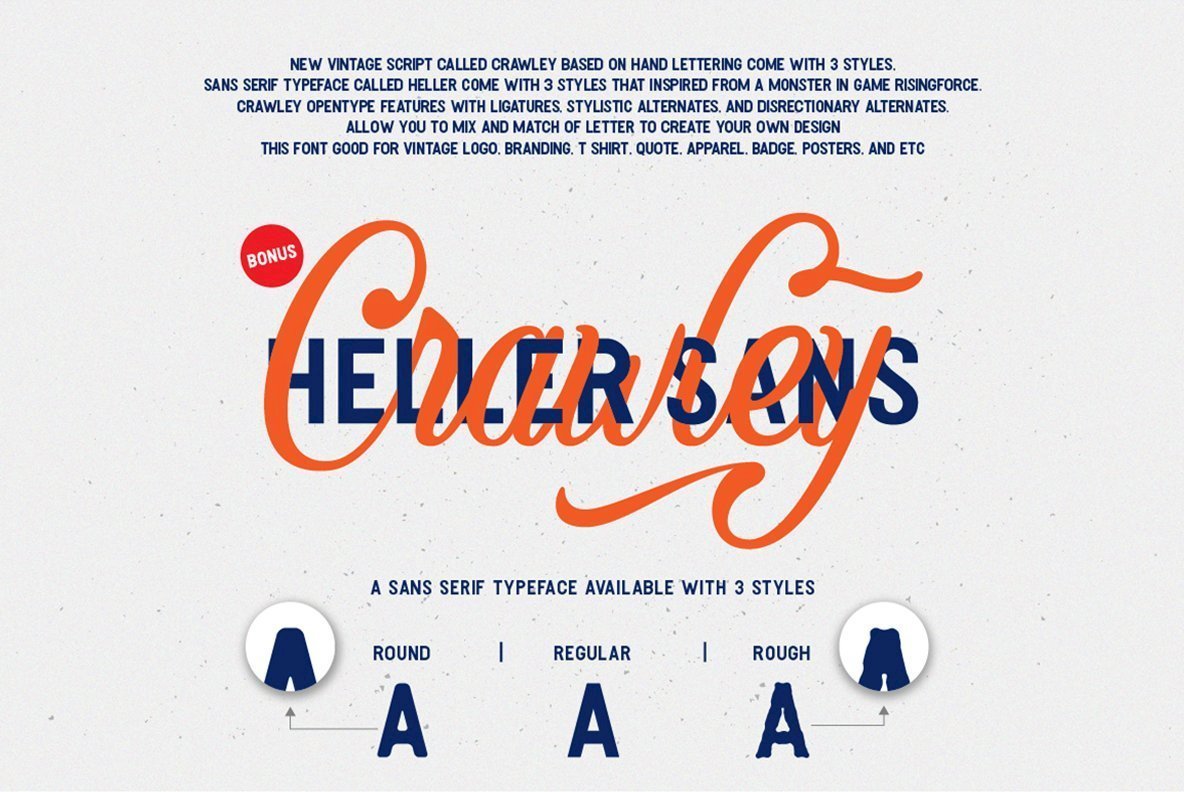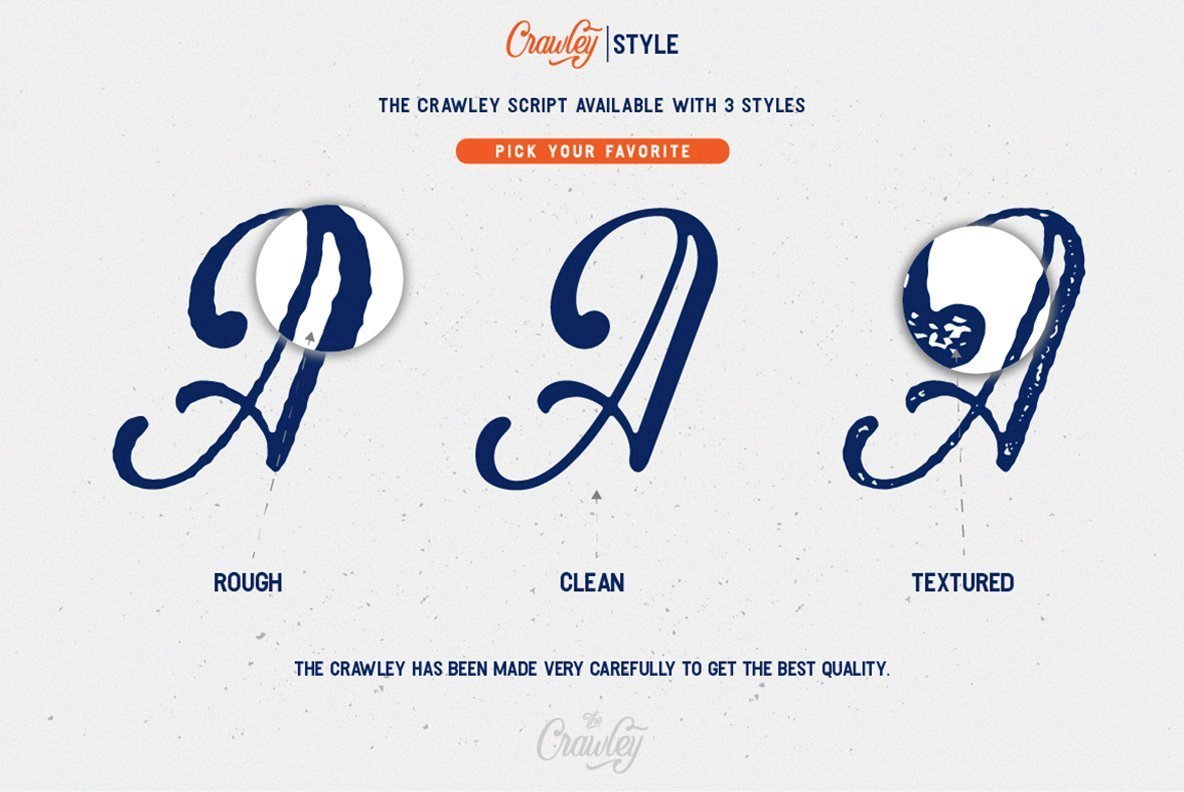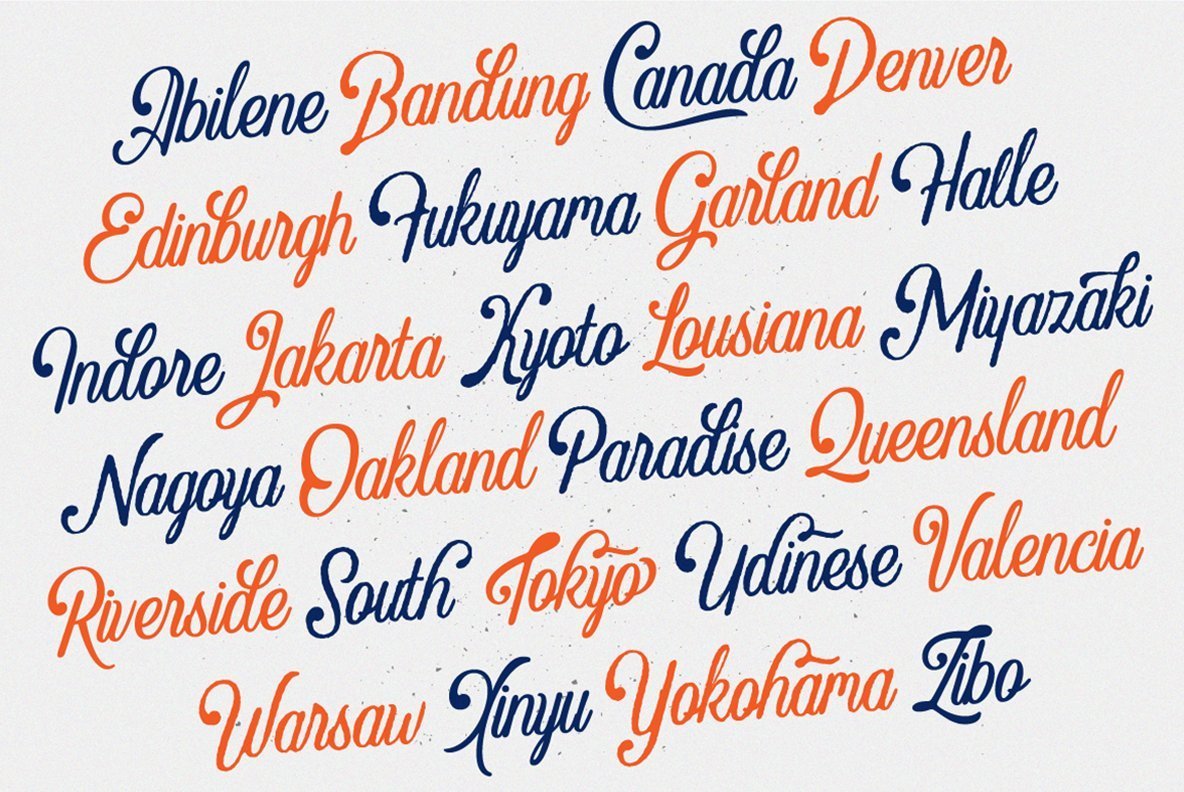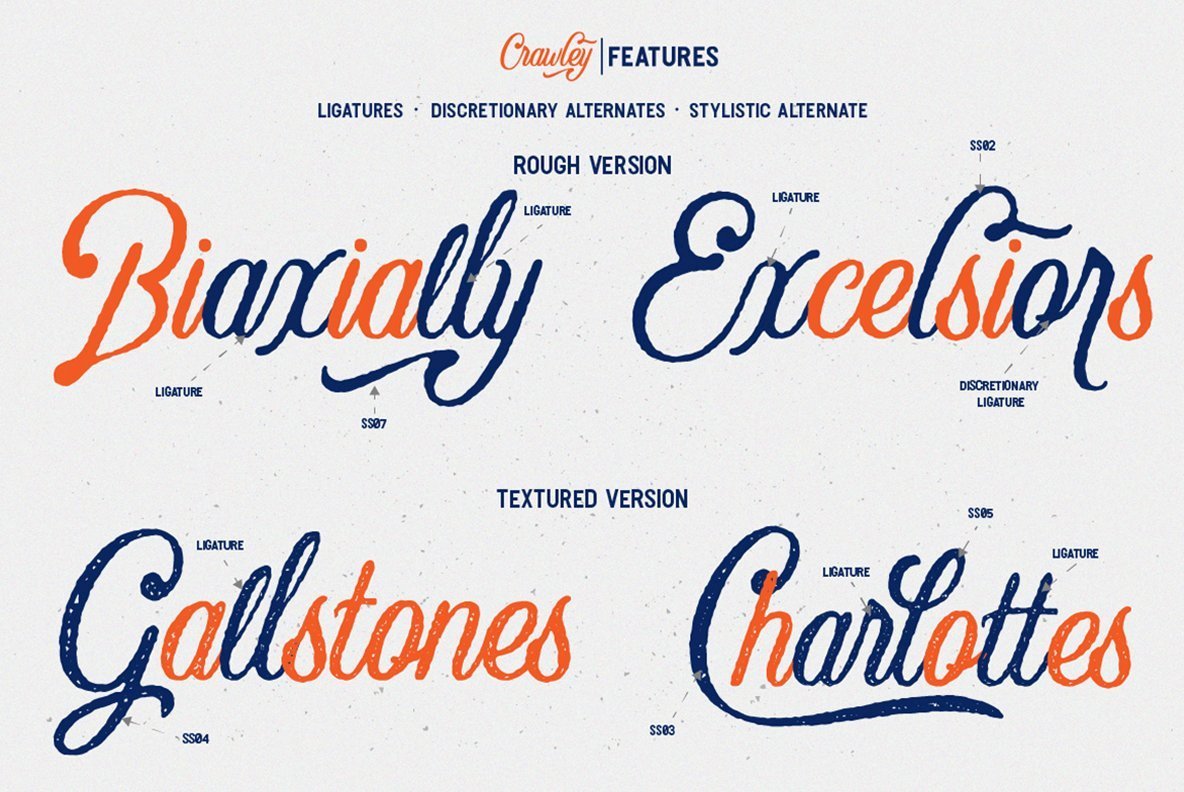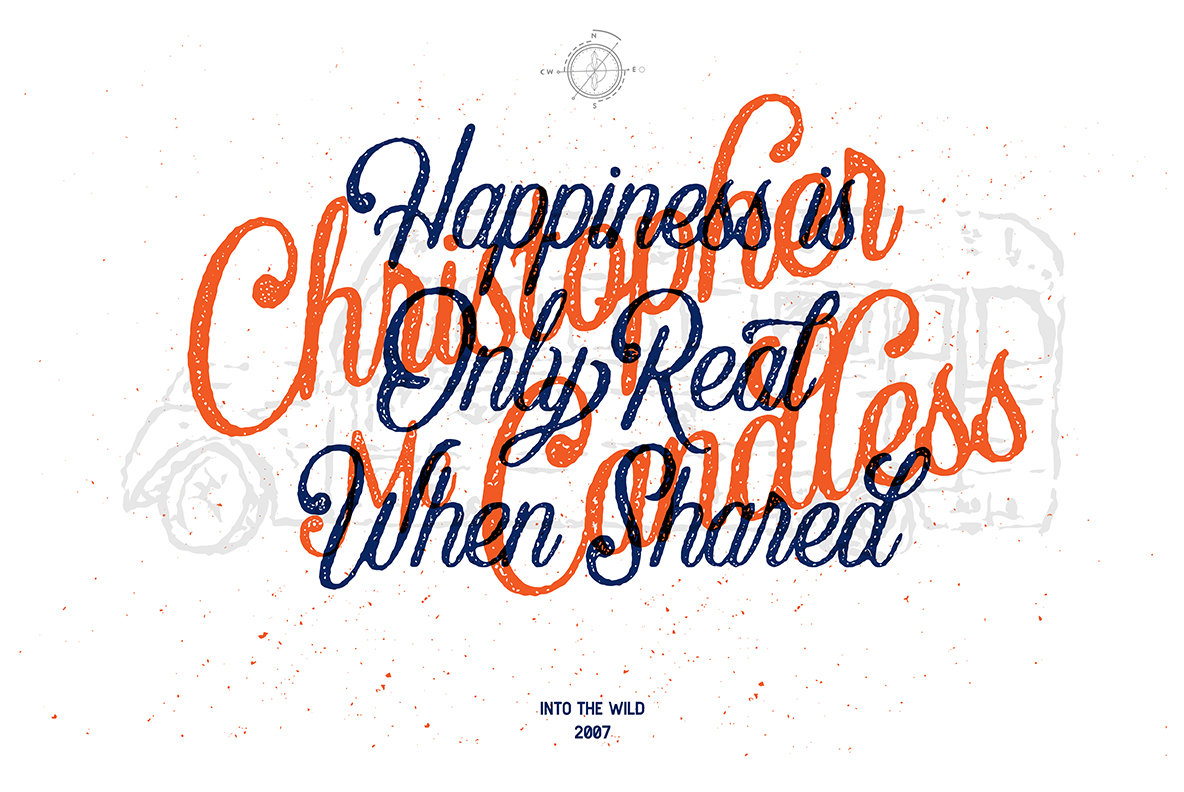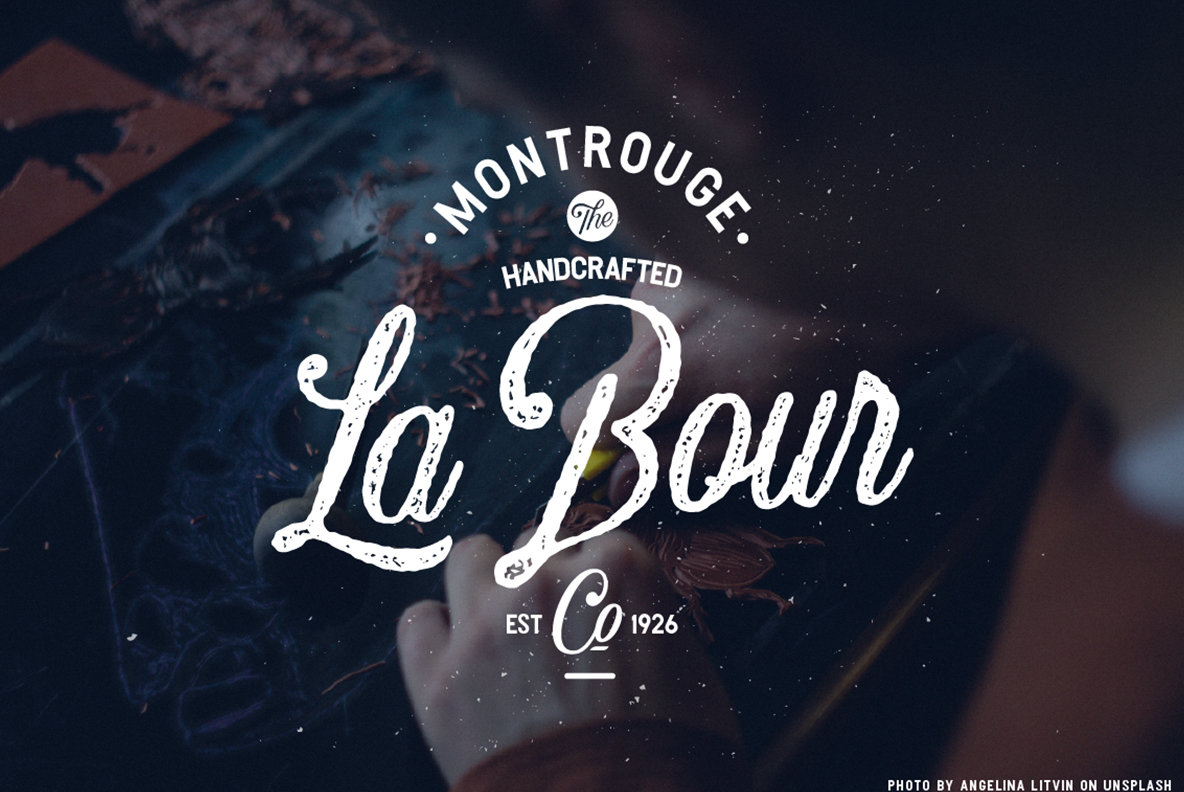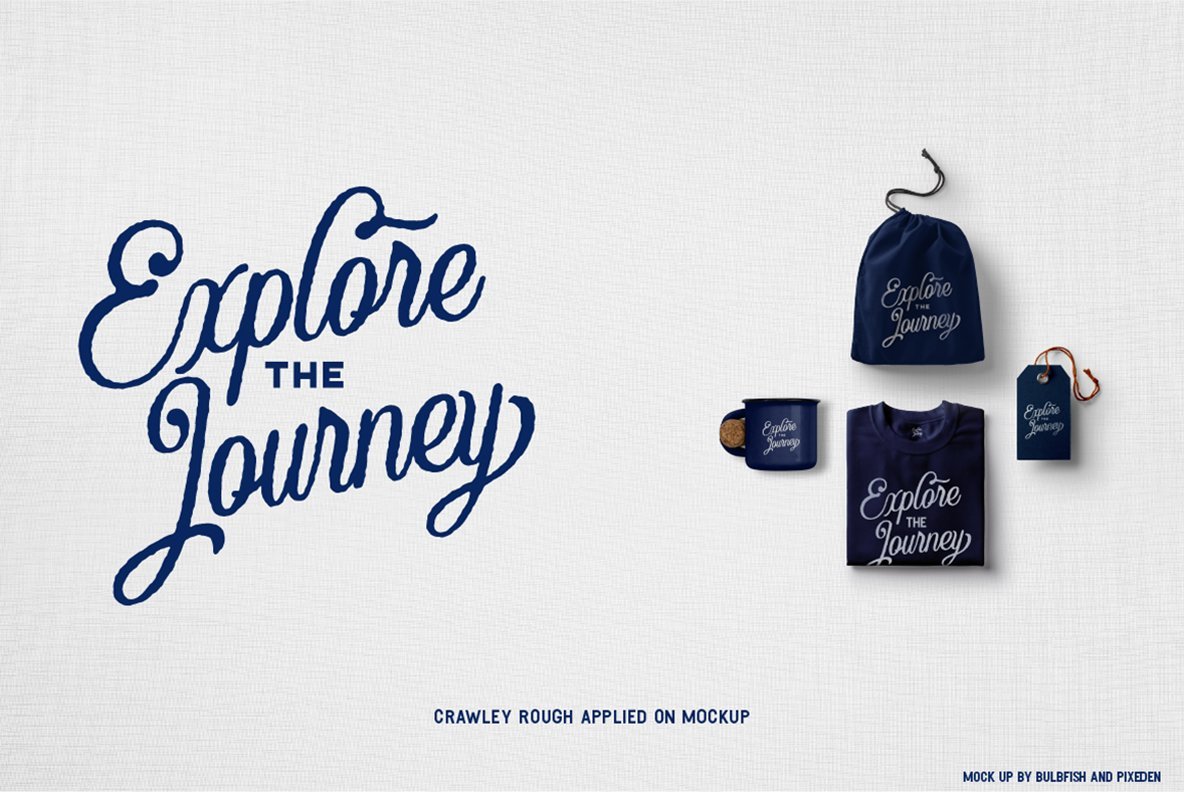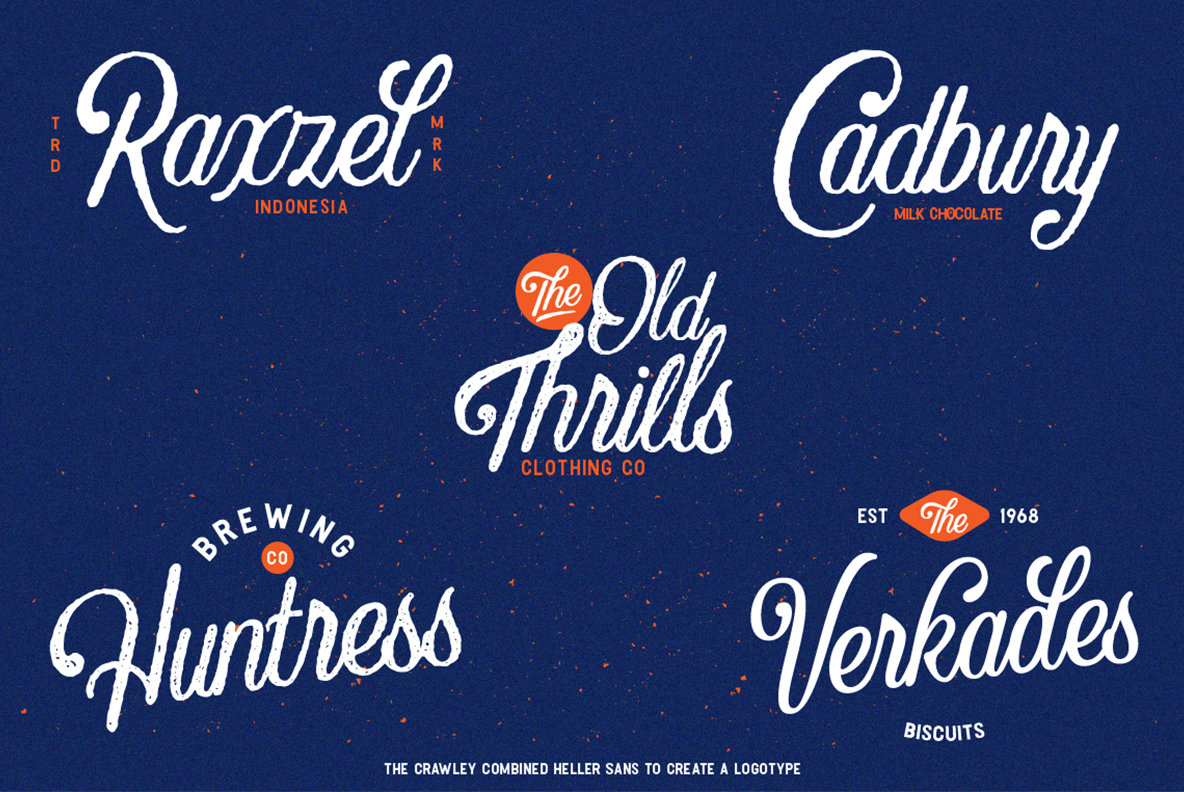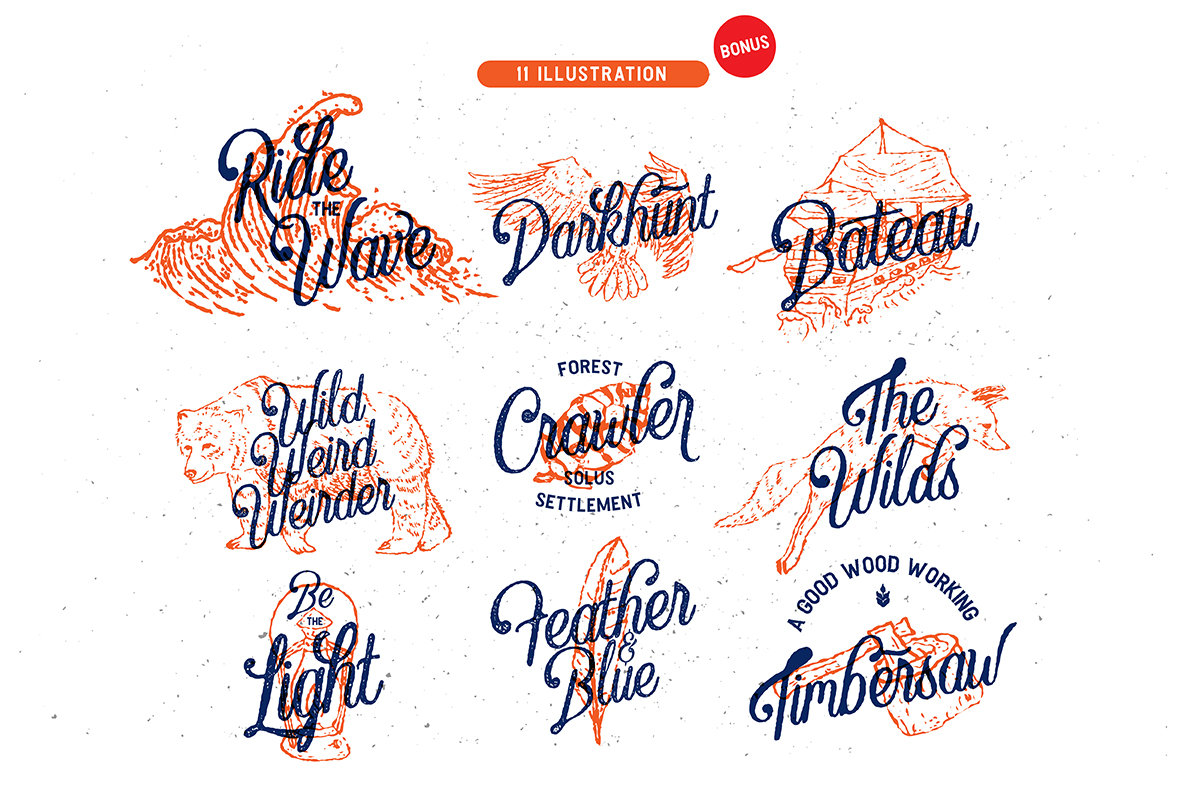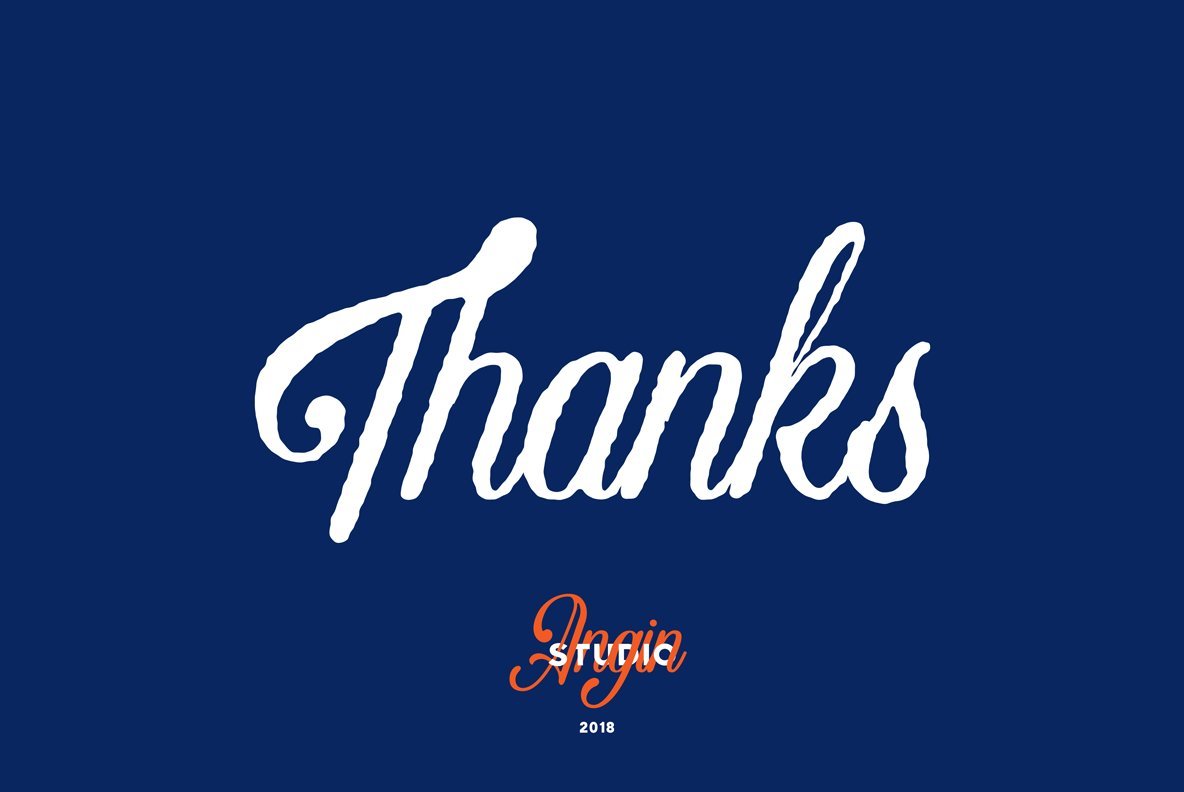
The Crawley Font
The Crawley is a vintage script typeface that offers a unique aesthetic drawn from hand lettering and classic American packaging, signs, and labels. This font provides a refreshing option in a world saturated with typefaces, enabling designers to express authentic creativity and style. Artfully crafted to ensure a smooth flow, The Crawley evokes a sense of nostalgia while providing modern versatility. It includes three distinct styles—Clean, Rough, and Textured—that cater to diverse design needs. These variations ensure that The Crawley is well-suited for multiple applications, enhancing the visual storytelling of any project.The Crawley: Vintage Script With Character
With its innate ability to harmonize with other design elements, The Crawley empowers your projects with timeless charm and utility.